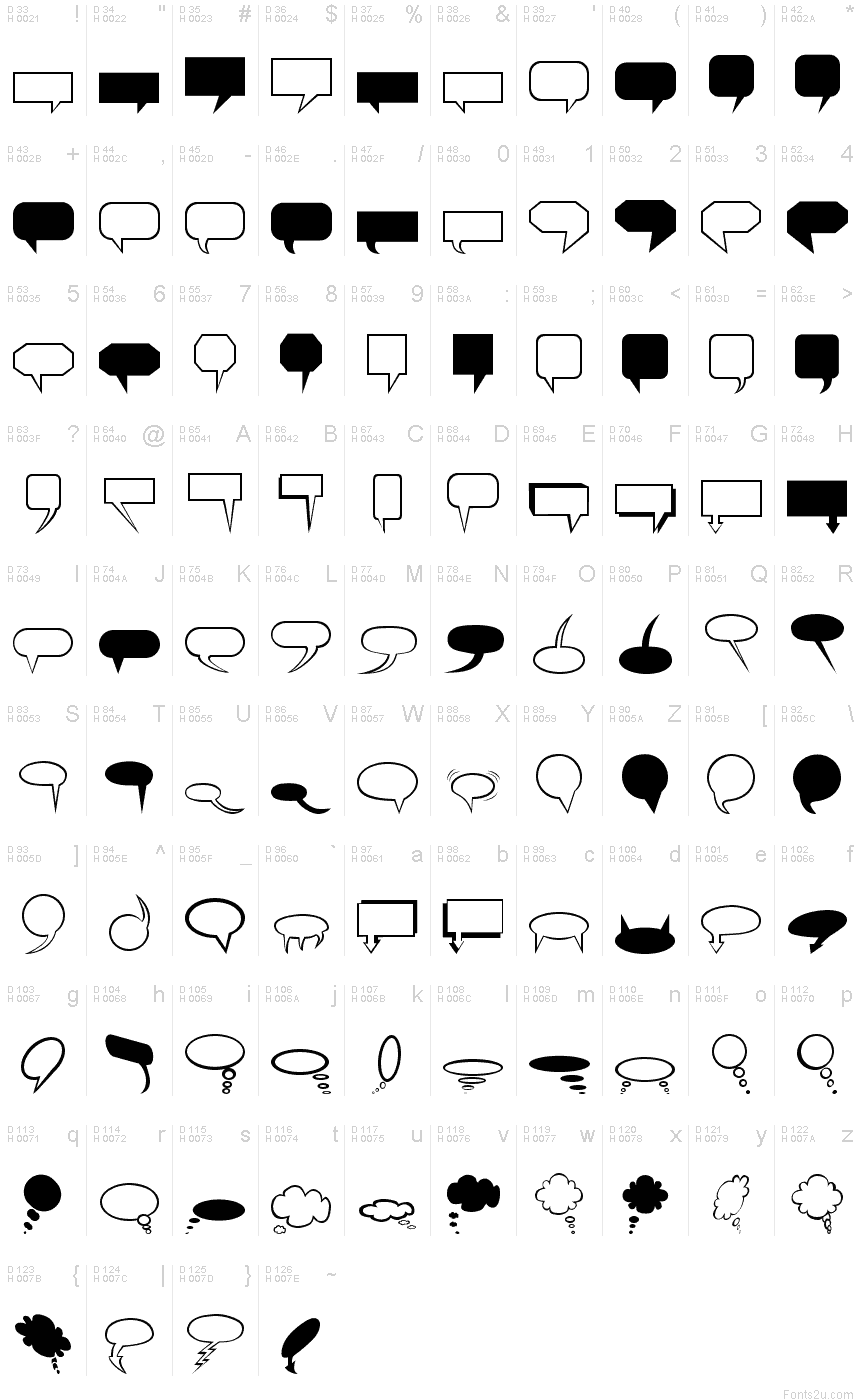
Carr Balloons
Carr Balloons font by Alan Carr turns speech bubbles into a ready-made toolkit of rectangles, ovals, and cartoon clouds, some solid and some outlined, all with clean, even strokes. This free font feels playful without getting messy, making it easy to drop dialogue shapes into comics, zines, kids’ flyers, or informal posters without redrawing them each time.
Because Carr Balloons font is made of icons rather than letters, it works best alongside a clear comic or rounded sans serif typeface set inside the bubbles. This free font is ideal for webcomics, social media graphics, classroom worksheets, stickers, meme captions, and any project that needs quick, expressive speech or thought shapes.